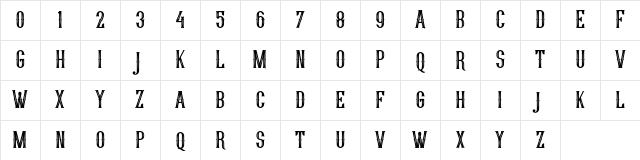
Young Heart Regular Free Font
Young Heart Regular
Foundry: Alit Design
Designer: Alit Suarnegara
Year: 2016
Complete Young Heart Regular glyph index. Displaying only characters natively supported by Young Heart Regular font.
Design Context for Young Heart
Young Heart is a composed and adaptable typeface that performs quietly and consistently across a wide range of design contexts.